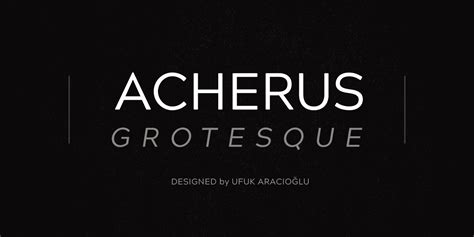
Acherus Grotesque Font. Web acherus grotesque font family | fonts.com It comes in 20 styles, 10 uprights and matching italics.
Noah fontfabric 72 styles 4 fonts free! It comes in 20 styles, 10 uprights and matching itali. Ad download 100s of fonts, graphic assets, actions, icons & more! Web download acherus grotesque. It comes in 20 styles: 8 uprights and matching italics. Web acherus grotesque font family | fonts.com 10 uprights and matching italics. Web acherus grotesque font | fontshop acherus grotesque published by horizon type. Acherus grotesque is a rounded sans serif type family based on geometric forms.
Web download acherus grotesque. All the creative assets you need under one subscription! It comes in 16 styles: Web acherus grotesque is a rounded sans serif type family based on geometric forms. Web acherus grotesque font is a rounded sans serif type family based on geometric forms. Web free download acherus grotesque for macos, windows, sketch, figma, photoshop and web site. 8 uprights and matching italics. Web acherus grotesque is a rounded sans serif type family based on geometric forms. Originally designed by ufuk aracioglu in. 10 uprights and matching italics. Web acherus grotesque regular font size acherus feral horizon type 20 styles 2 fonts free!